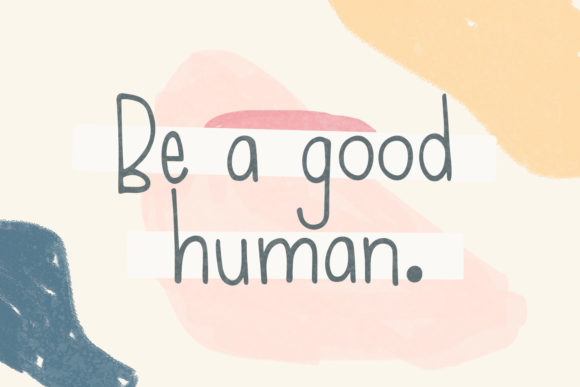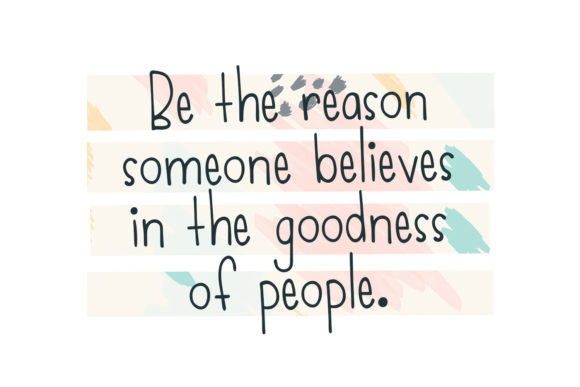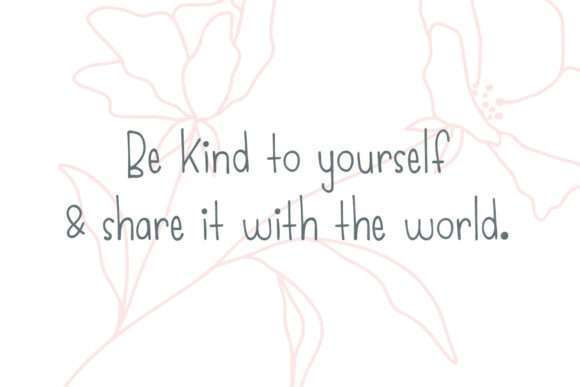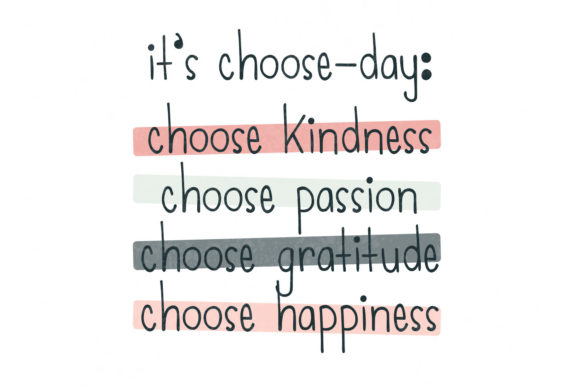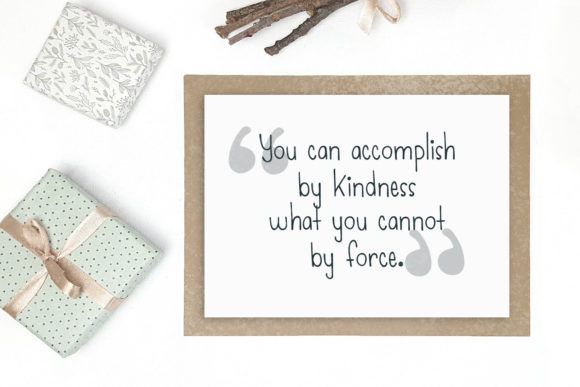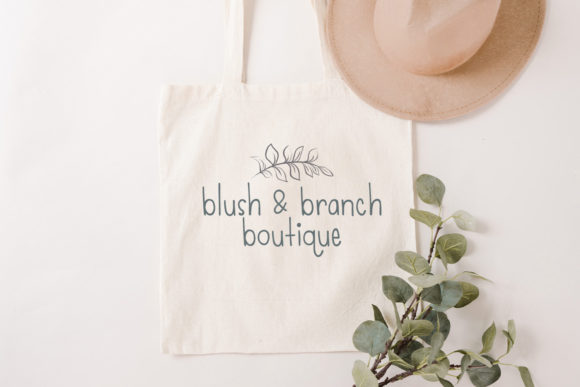
Introducing Besties Font: The Ultimate Sans Serif for Creative Projects
Are you on the hunt for a font that can elevate your creative projects to the next level? Look no further than Besties Font, a minimal and neat sans serif font that’s perfect for a wide range of applications. In this article, we’ll dive into the world of Besties Font and explore its features, benefits, and uses, helping you to make the most of this versatile typeface.
The Characteristics of Besties Font
Besties Font is a sans serif font, characterized by its clean and minimalist design. The font features a simple, unadorned aesthetic that’s perfect for creating modern and sophisticated designs. Its neat and organized structure makes it easy to read, even at small sizes, making it an excellent choice for body text, headings, and titles.
What Makes Besties Font Stand Out
So, what sets Besties Font apart from other sans serif fonts on the market? Here are just a few features that make it a standout:
- Versatility: Besties Font can be used in an incredibly large set of projects, from branding and advertising to packaging, web design, and more.
- Legibility: The font’s clean design and simple structure make it easy to read, even at small sizes.
- Flexibility: Besties Font can be used for both digital and print projects, making it a great addition to any designer’s toolkit.
Using Besties Font in Your Creative Projects
Besties Font is an incredibly versatile typeface that can be used in a wide range of creative projects. Here are just a few ideas to get you started:
- Branding and Identity: Use Besties Font to create a modern and sophisticated brand identity, including logos, business cards, and letterheads.
- Web Design: Add Besties Font to your website or blog to create a clean and professional look that will engage your visitors.
- Packaging Design: Use Besties Font to create eye-catching packaging designs that will help your products stand out on store shelves.
- Advertising: Besties Font is perfect for creating modern and effective ad campaigns, including print ads, social media graphics, and more.
Tips for Getting the Most Out of Besties Font
To get the most out of Besties Font, here are a few tips to keep in mind:
- Experiment with different sizes: Besties Font looks great at a wide range of sizes, from small body text to large headings.
- Play with color: Besties Font can be used with a wide range of colors, so don’t be afraid to experiment and find the perfect combination for your project.
- Mix and match: Besties Font can be paired with a wide range of other fonts, so feel free to experiment and find the perfect combination for your project.
In conclusion, Besties Font is a versatile and modern sans serif font that’s perfect for a wide range of creative projects. Its clean and minimalist design makes it easy to read and use, while its flexibility and legibility make it a great addition to any designer’s toolkit. Whether you’re working on a branding project, web design, or packaging design, Besties Font is sure to help your creative ideas stand out.